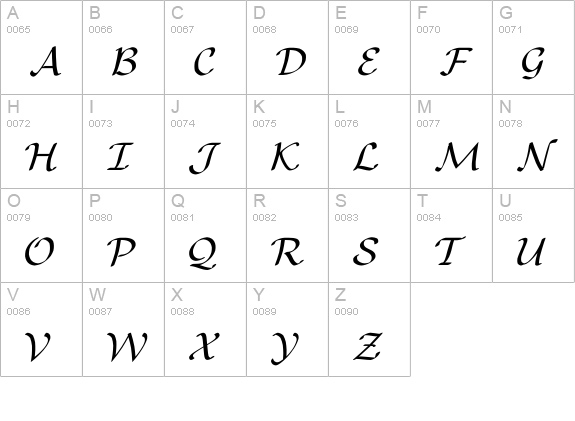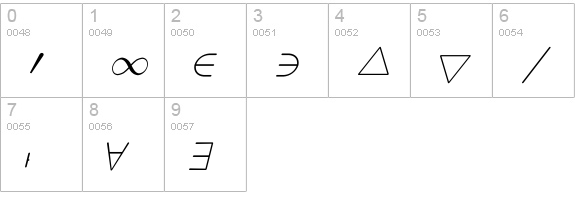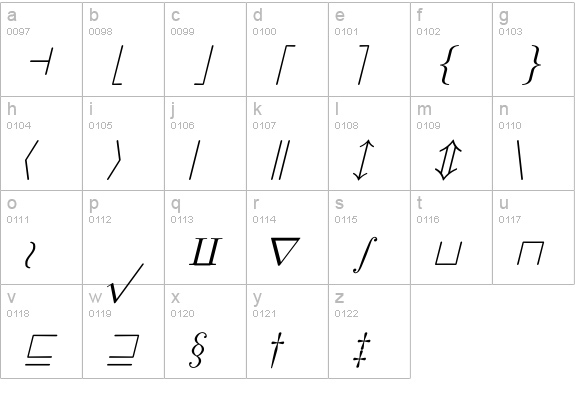
CM_MathSymbol Regular Font Details
CM_MathSymbol Regular is the standard, neutral variant in the CM_MathSymbol typeface family \xE2\x80\x94 well suited to general body text, paragraphs, and standard typographic work.